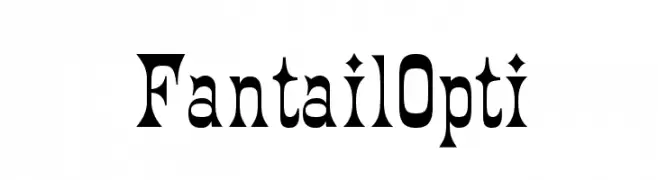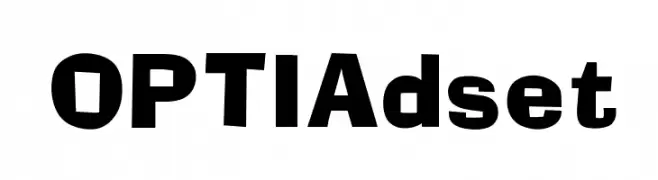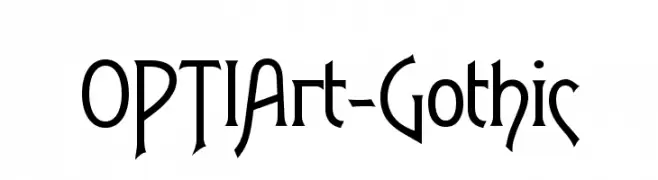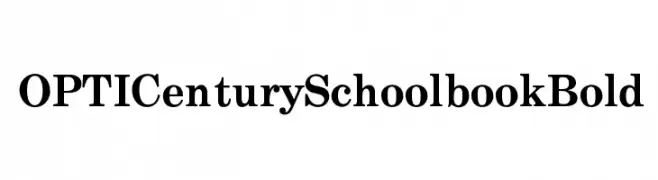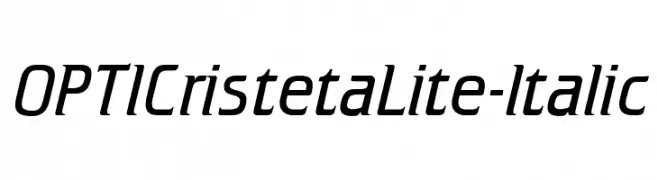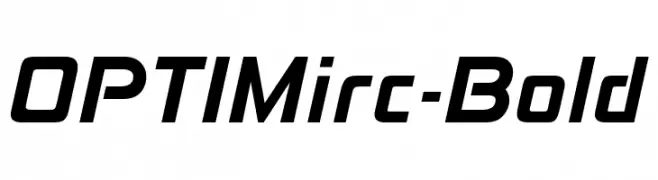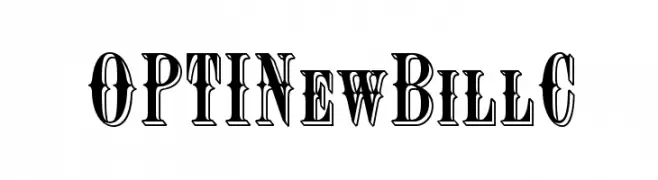
A modern, italic font with clean lines and a dynamic style.
A classic serif font with elegant proportions and refined serifs.
A bold, impactful font with thick strokes and a strong presence.
A dynamic, casual font with a slight slant and smooth curves.
A bold, classic serif typeface with strong, authoritative strokes.
A gothic-inspired font with sharp, angular lines and artistic flair.
A bold, modern font with a slight italic slant and geometric design.
A bold, high-contrast font with geometric and decorative elements.
A bold, decorative font with a vintage, three-dimensional style.
A bold, modern font with a strong, uniform appearance and slightly condensed width.